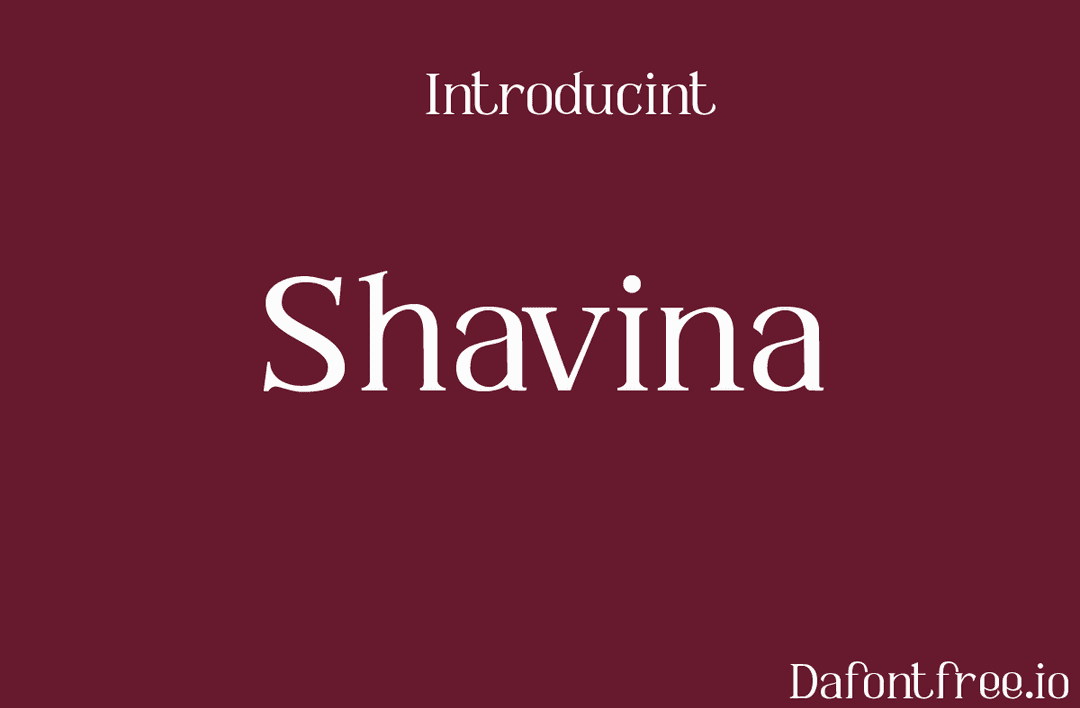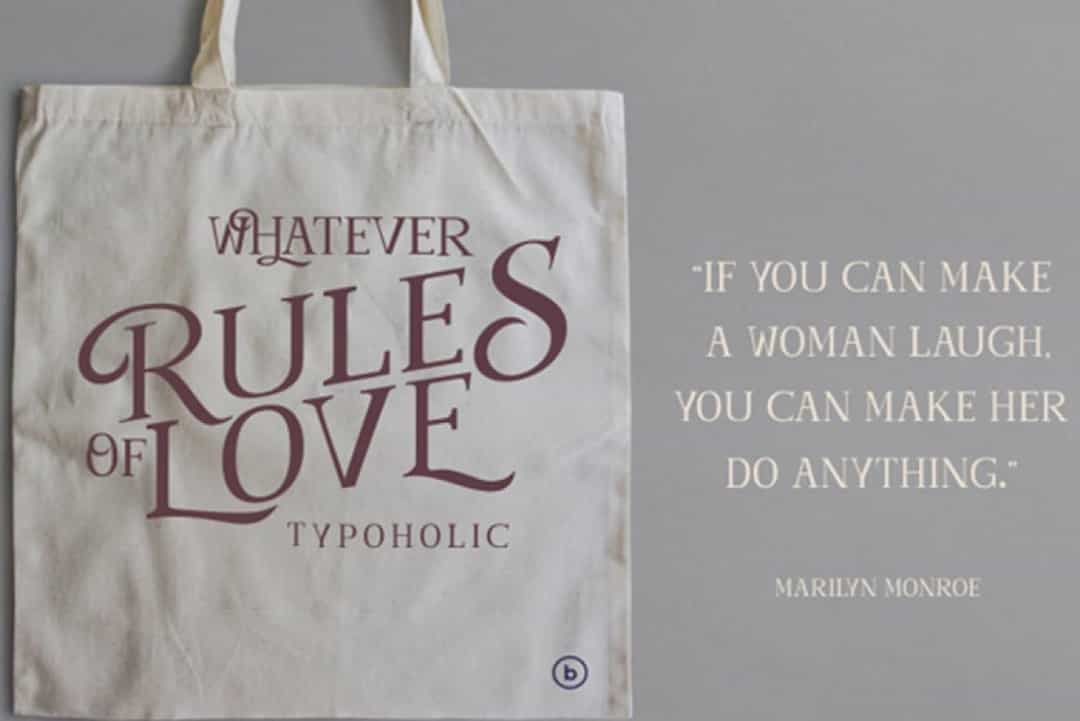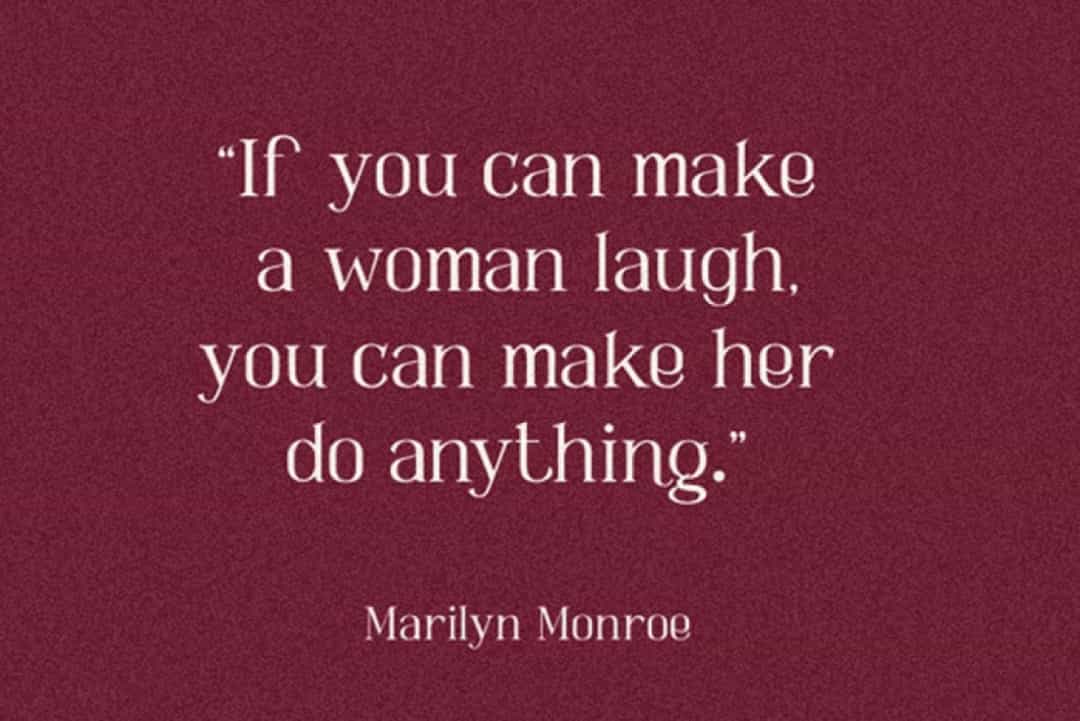
Shavina Serif is a font that was designed with the elegant feminine pretty concept and has alternatives with beautiful swash curves for the purpose of being used as logotypes, text quotes, logo designs for beauty products, and elegance which can also be applied to other property products.